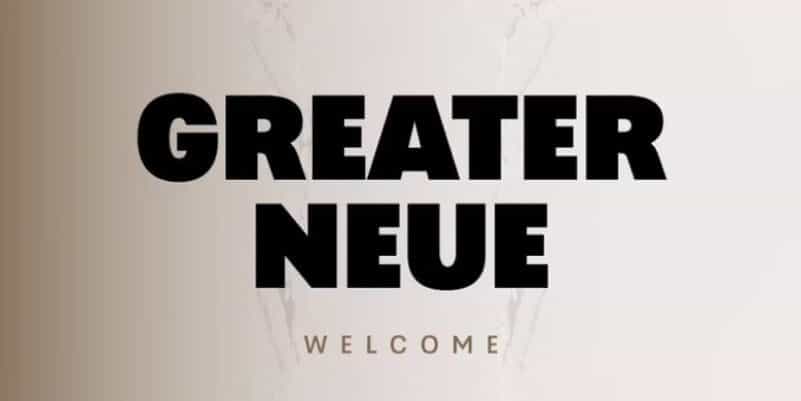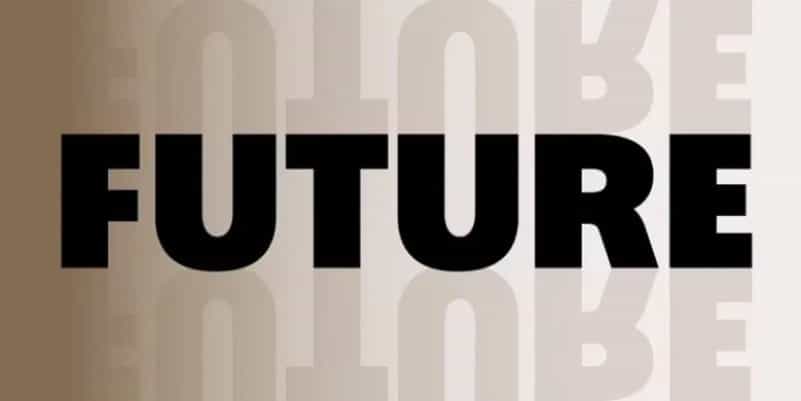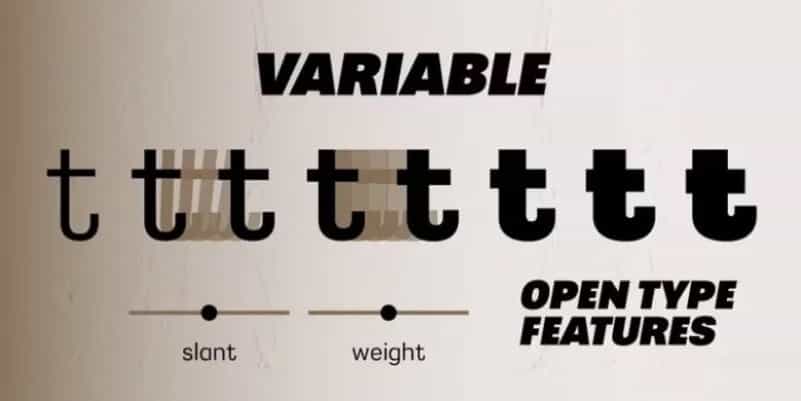
Greater Neue is an elegant contemporary sans-serif font family composed of 16 weights (8 uprights and italics that match), along with an adjustable font that can be altered both weight- and tilt-wise for precise control.